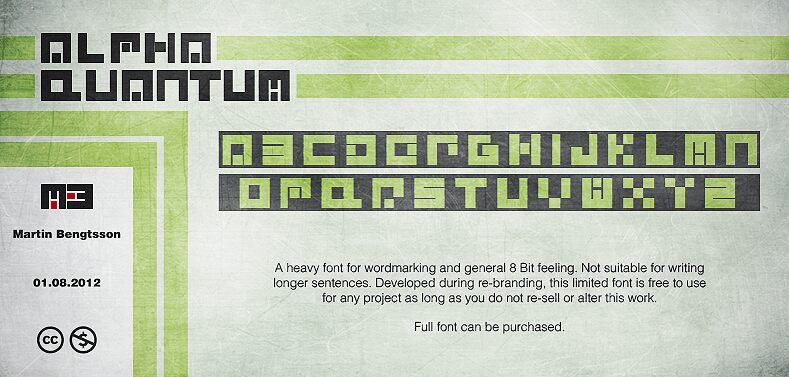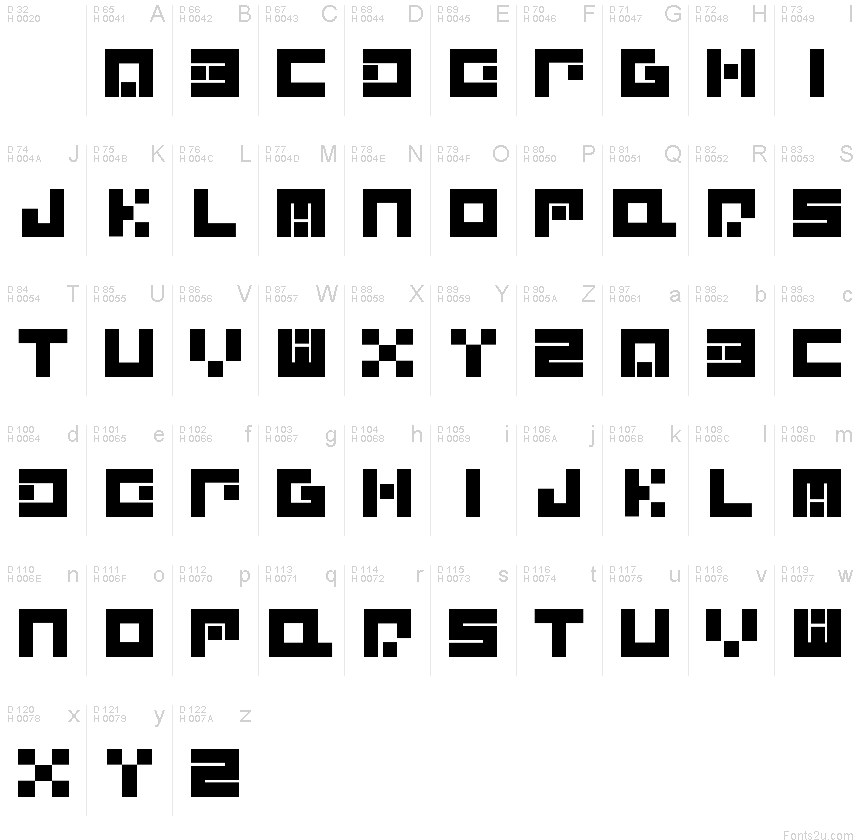
Alpha Quantum Glyphset by Vision Collective is a free futuristic display font with towering geometric letters and a stark electronic look. Hairline strokes meet broad rectangular bars throughout, forming open, maze-like shapes with abrupt square cut-ins.
Technology and speculative science are its natural subjects in futuristic settings. That makes it useful for game interfaces, electronic music packaging, film graphics, and event posters. The lettering can echo circuit diagrams and architectural plans, becoming part of the technical imagery rather than a separate caption.
Alpha Quantum Glyphset
Alpha Quantum Glyphset Regular is a font by Vision Collective, designed by Martin Bengtsson in 2012.